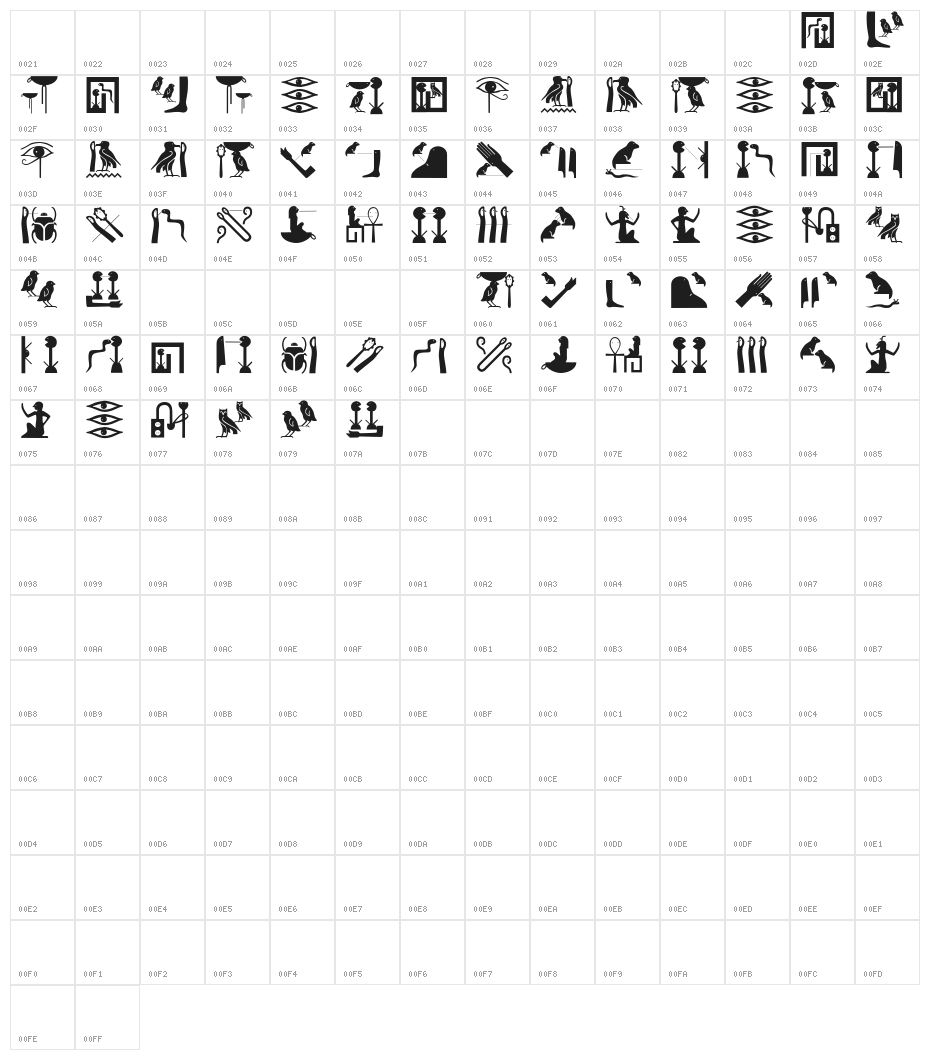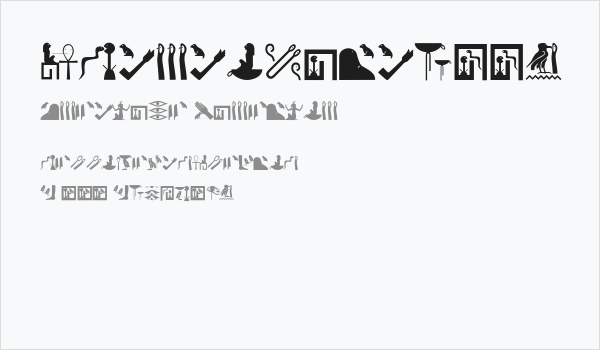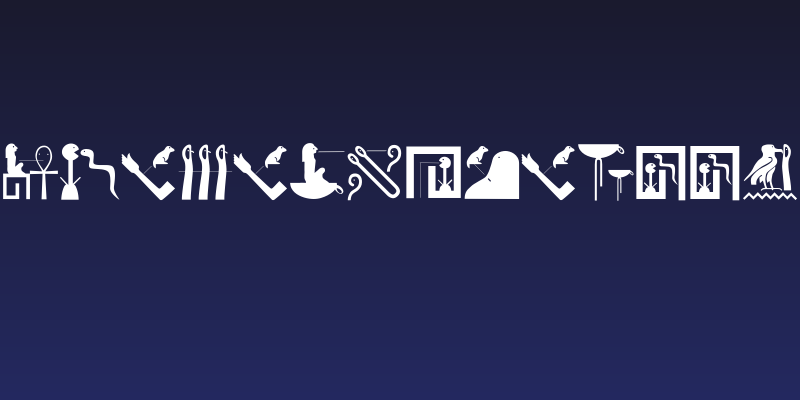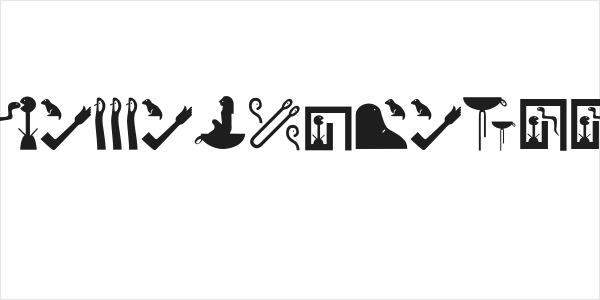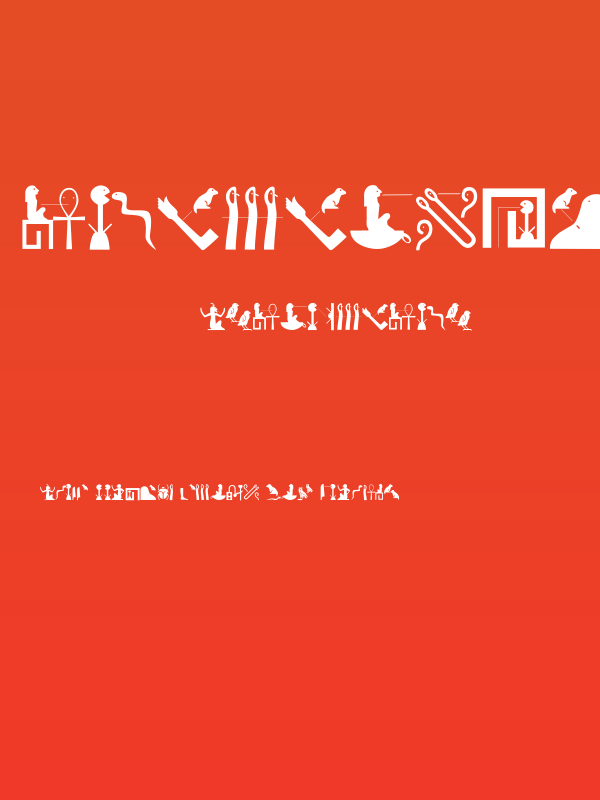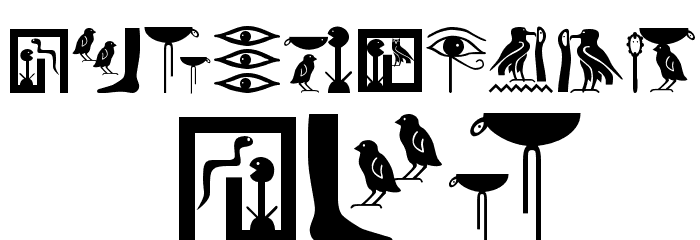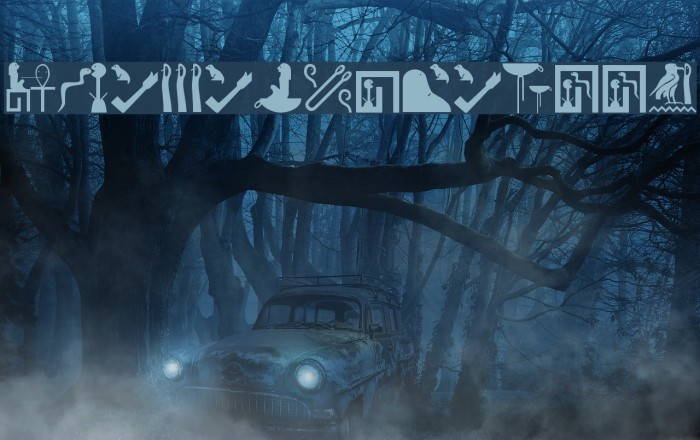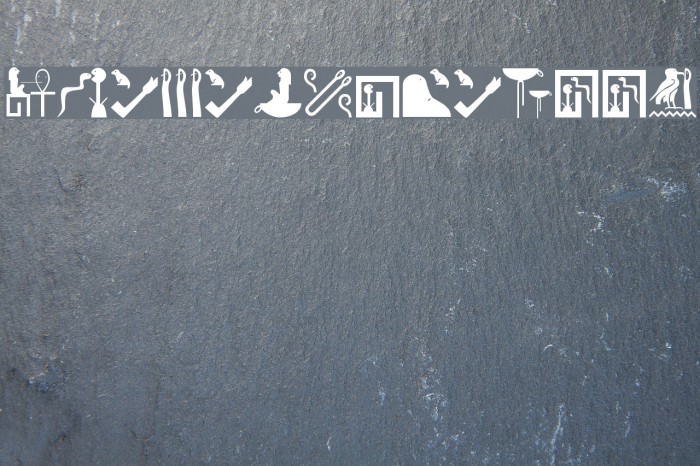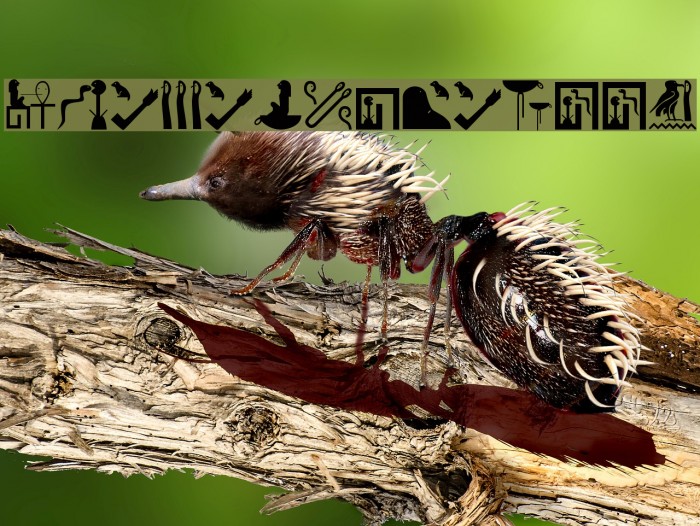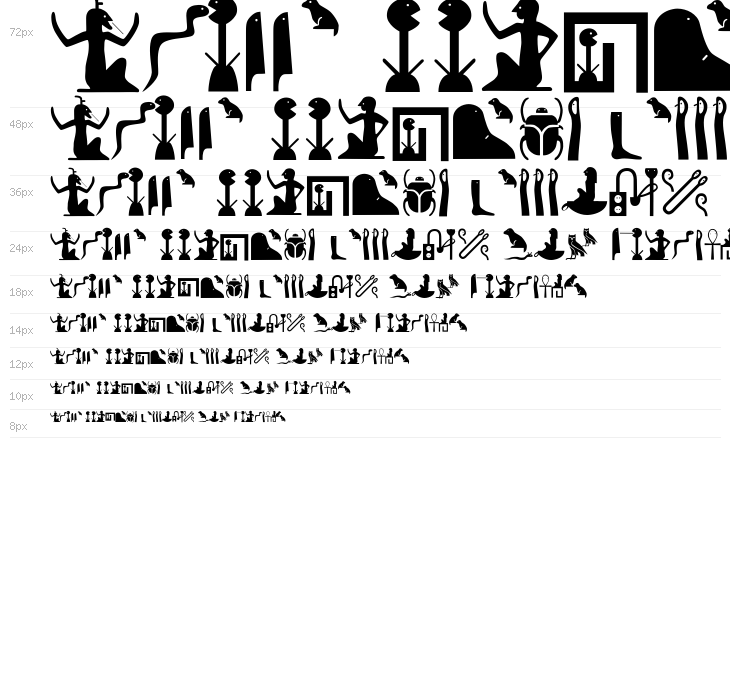
Pharaonica2007 Font
Pharaonica2007 Description
This is not a traditional font but rather a collection of ancient Egyptian hieroglyphs. Each symbol represents a distinct idea or sound, characteristic of the writing system used in ancient Egypt. The symbols include depictions of animals, body parts, and various objects, each intricately designed with historical significance. The hieroglyphs are visually striking, with bold lines and detailed shapes, capturing the essence of ancient Egyptian art and communication.
| Overall Style | Historical, Decorative |
| Use Case | Artistic projects, Educational materials, Historical displays |
| Proposed Projects | Ideal for educational materials on ancient Egypt, historical documentaries, museum exhibits, or artistic projects inspired by ancient cultures. |